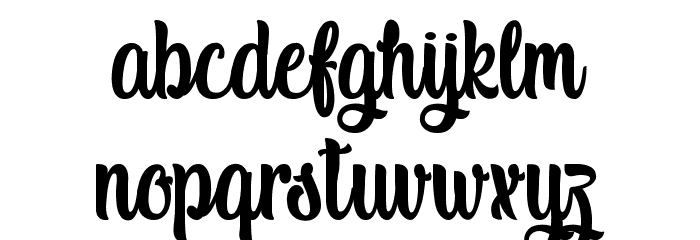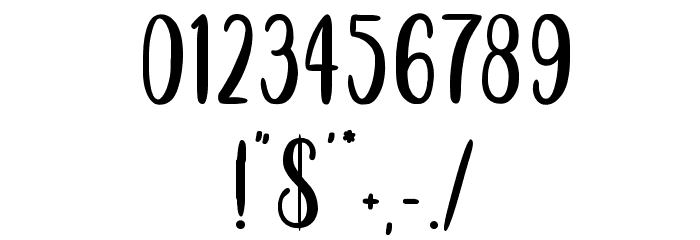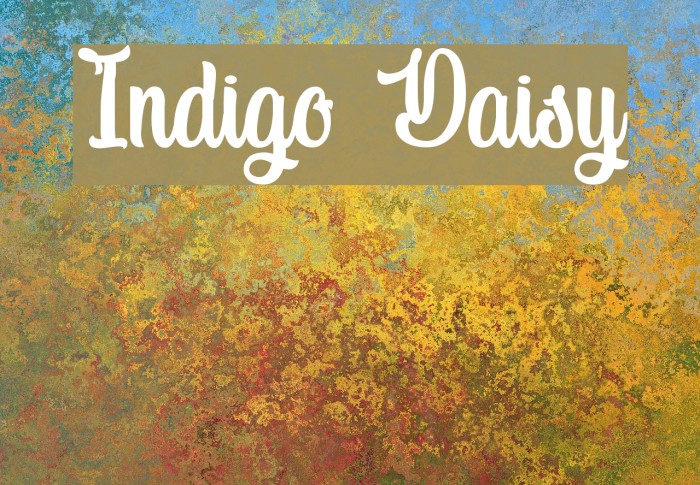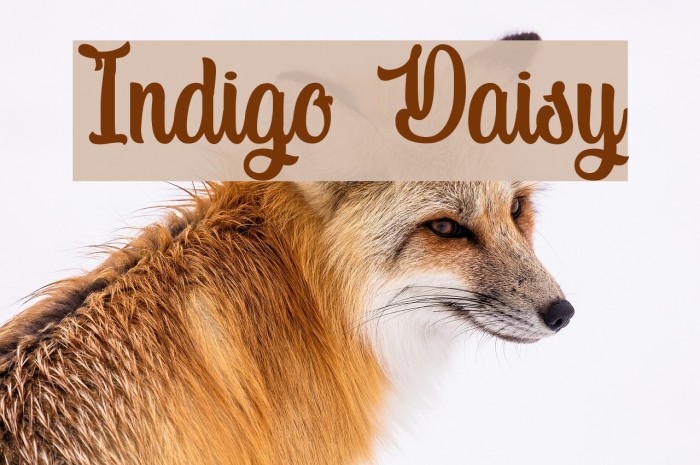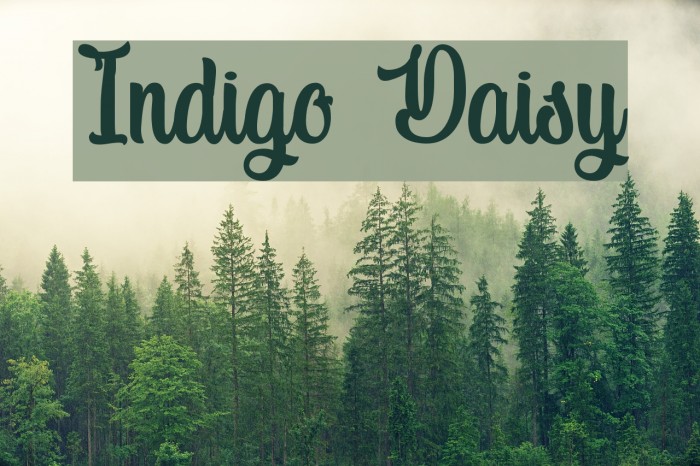
Indigo Daisy Font
This font features a playful and whimsical script style with a handwritten appearance. The uppercase letters are bold and expressive, with flourishes that add a touch of elegance. The lowercase letters maintain a consistent flow, enhancing readability while retaining a unique charm. Numbers are clear and distinct, matching the overall style of the alphabet. Special characters are creatively designed, fitting seamlessly with the rest of the font. The strokes are smooth and rounded, giving a friendly and approachable feel. This font is perfect for projects that require a personal touch or a sense of creativity.
A playful, handwritten script font with bold, expressive characters.
- Proposed Projects: Ideal for greeting cards, invitations, branding, and creative projects that require a personal touch.
- Use Case: Logos, Invitations, Greeting Cards